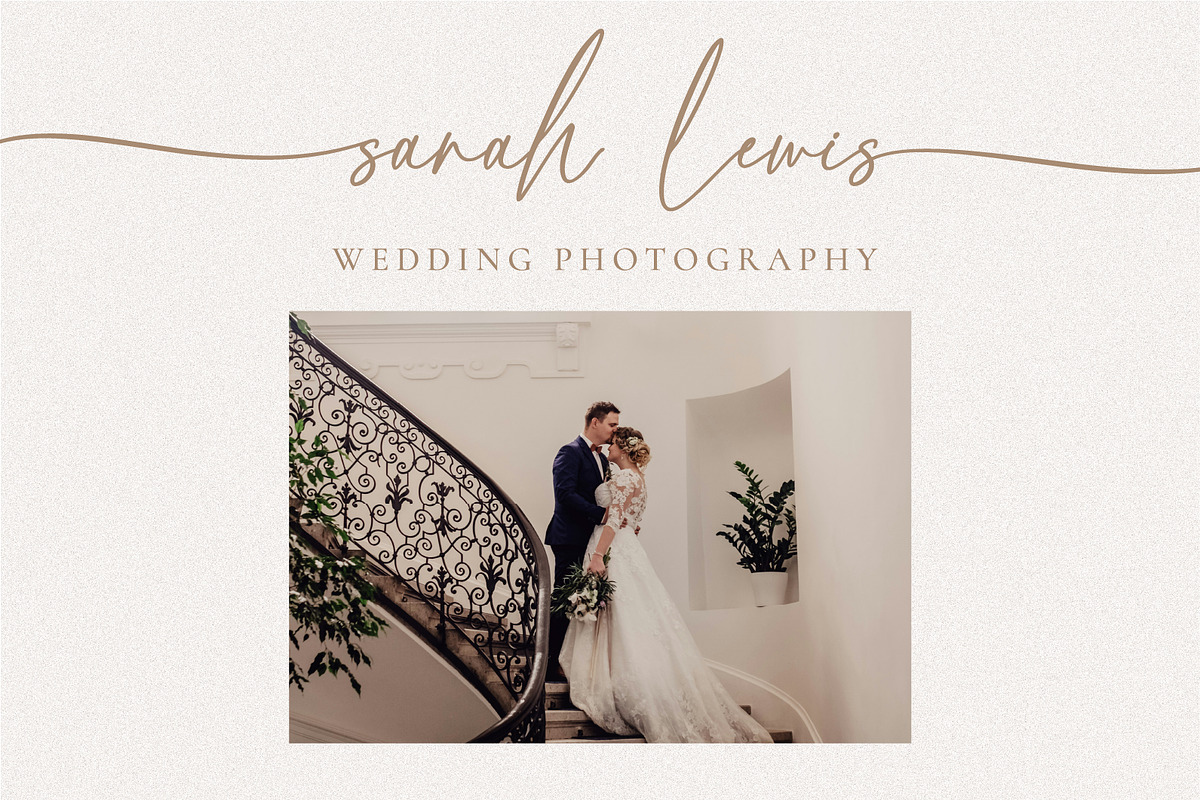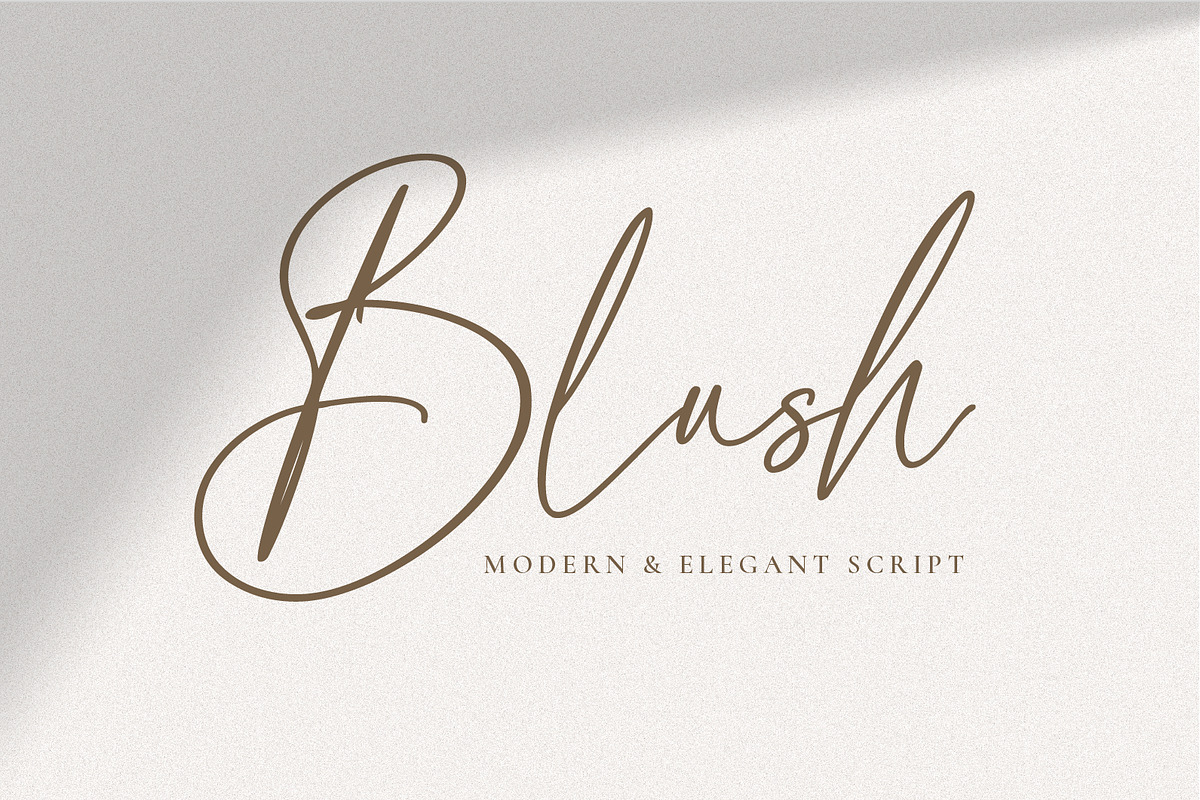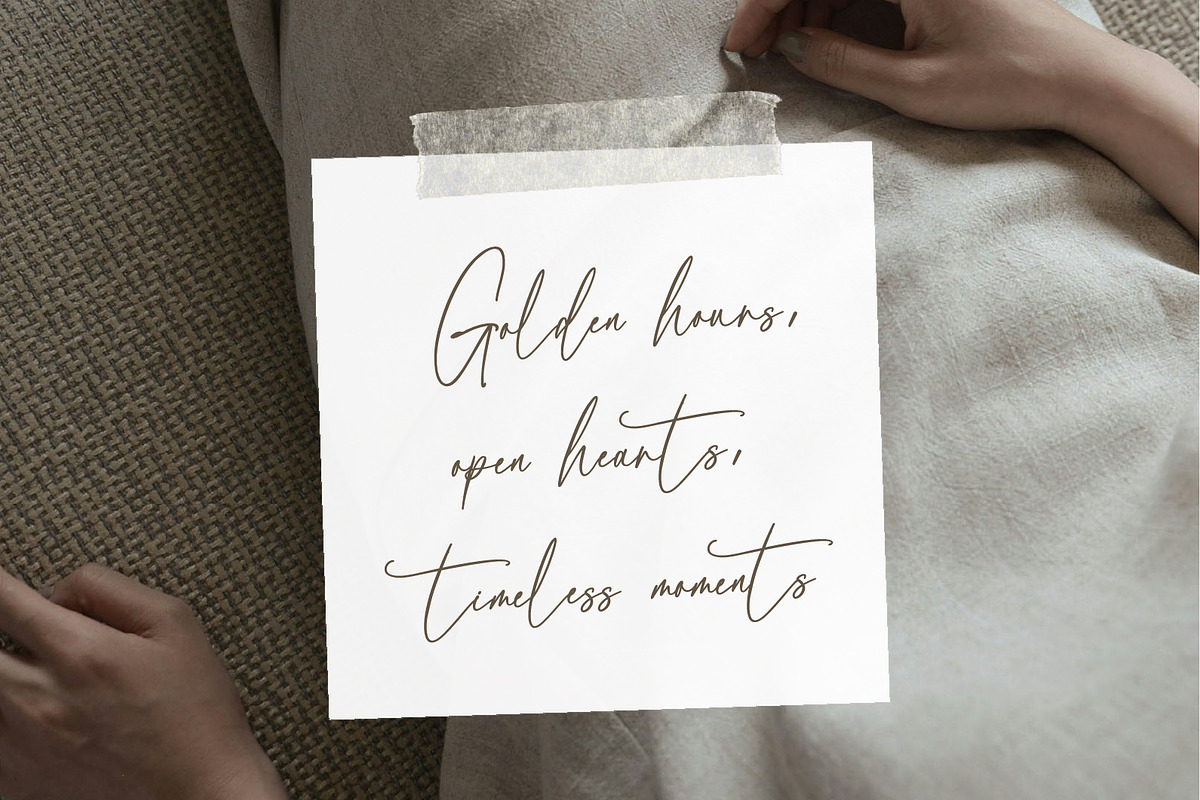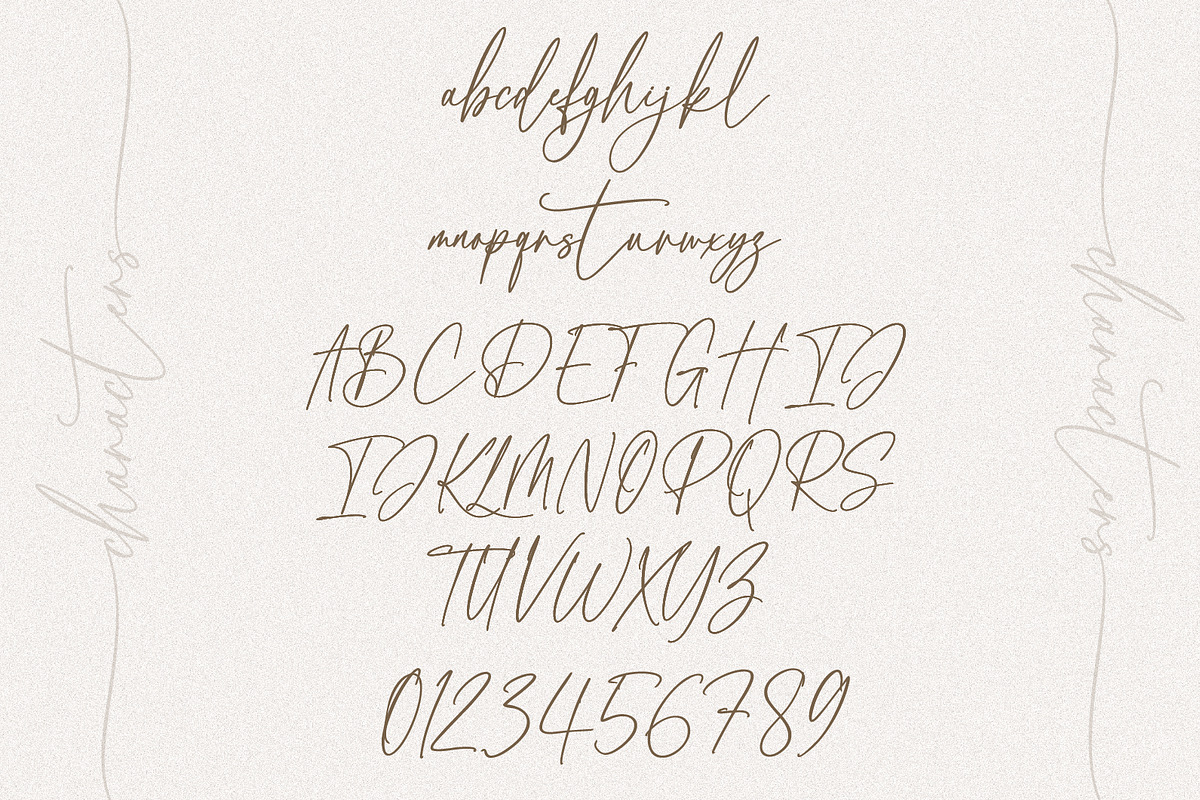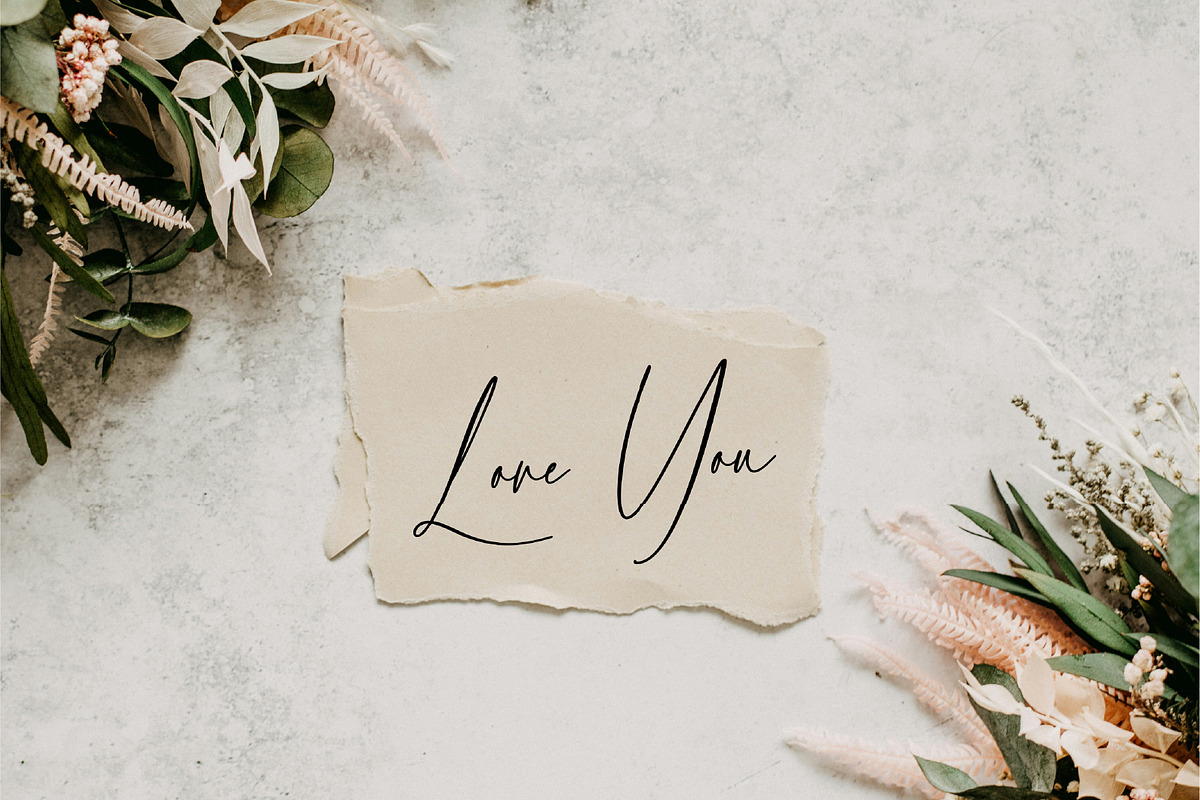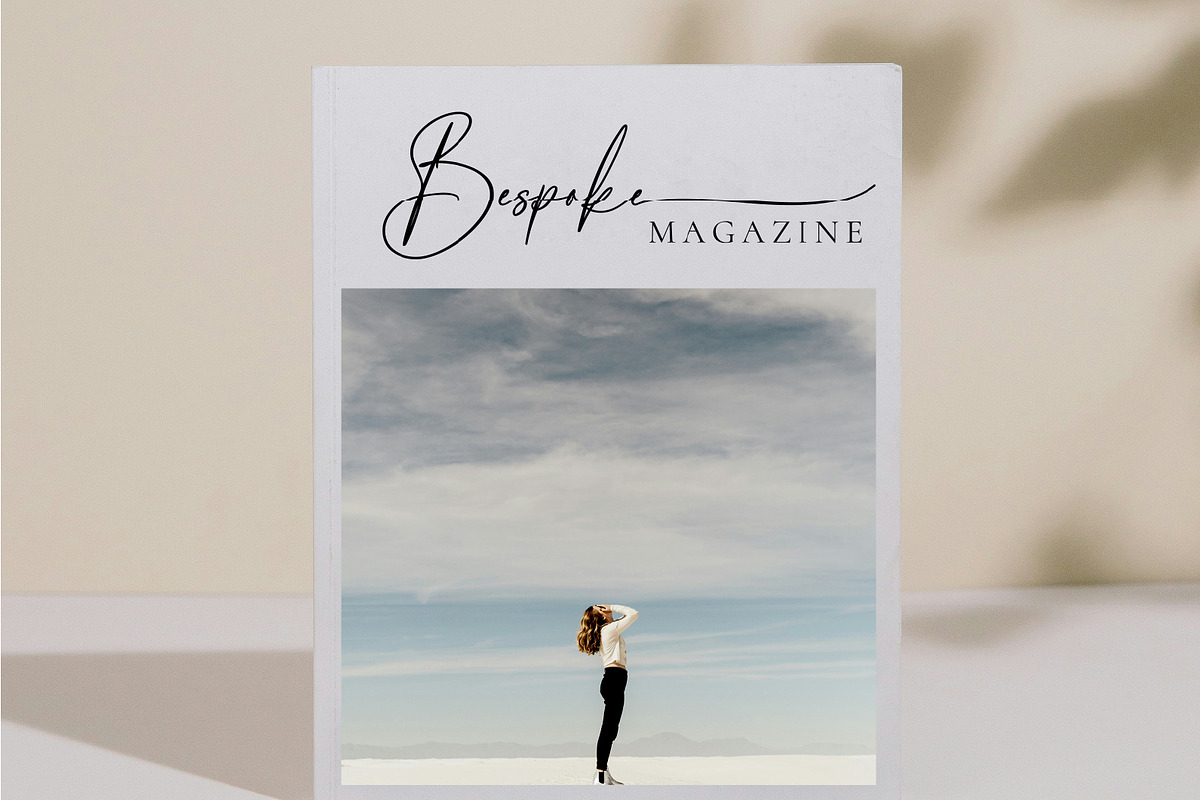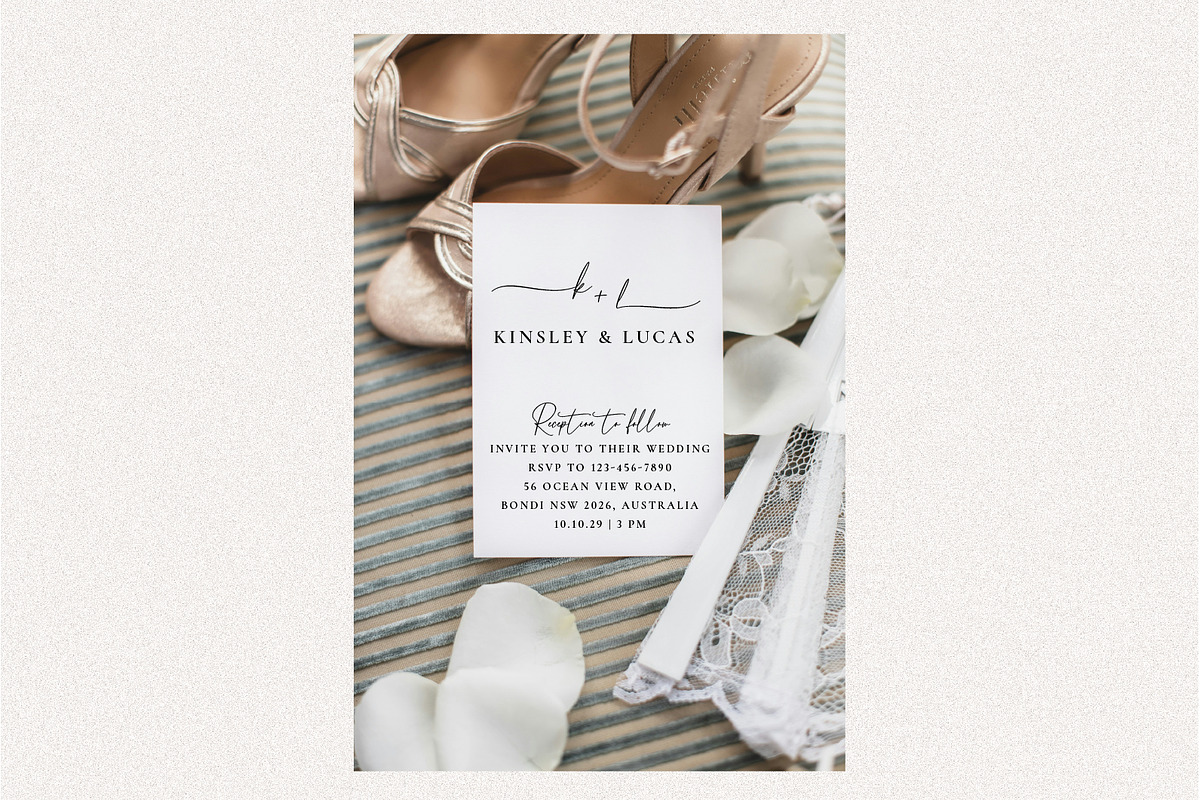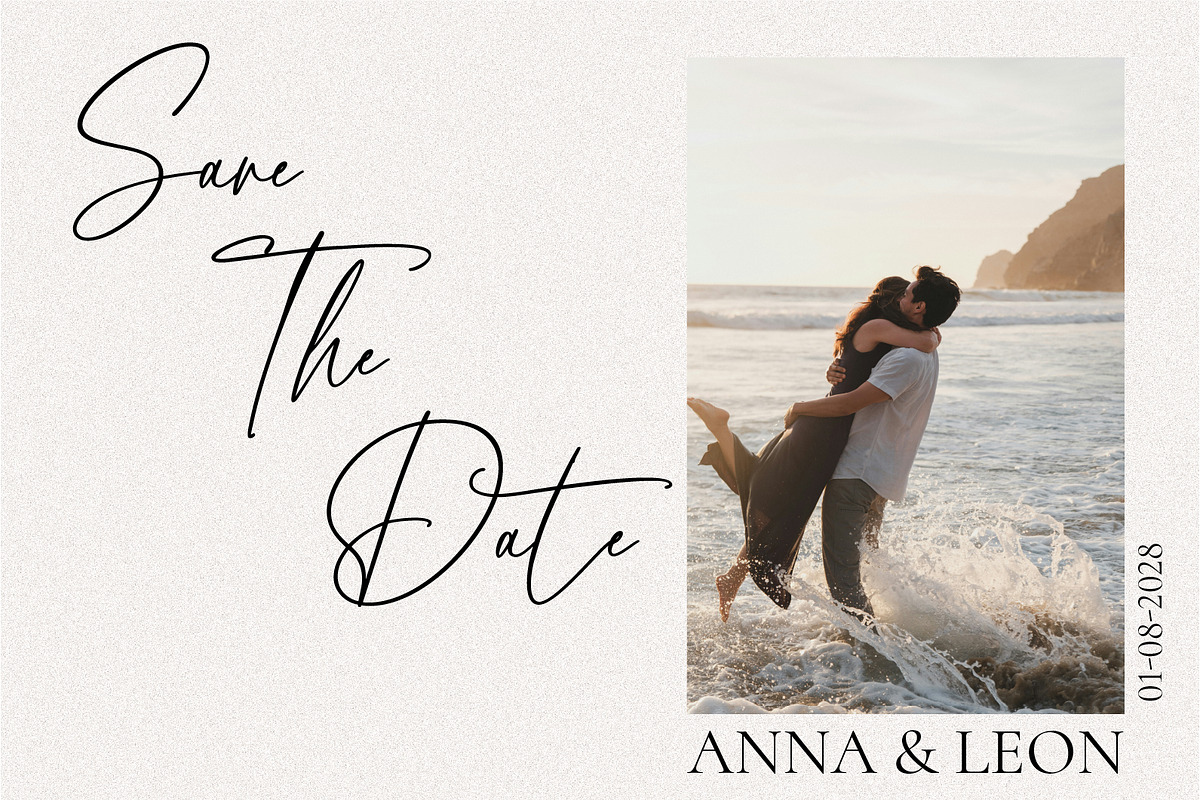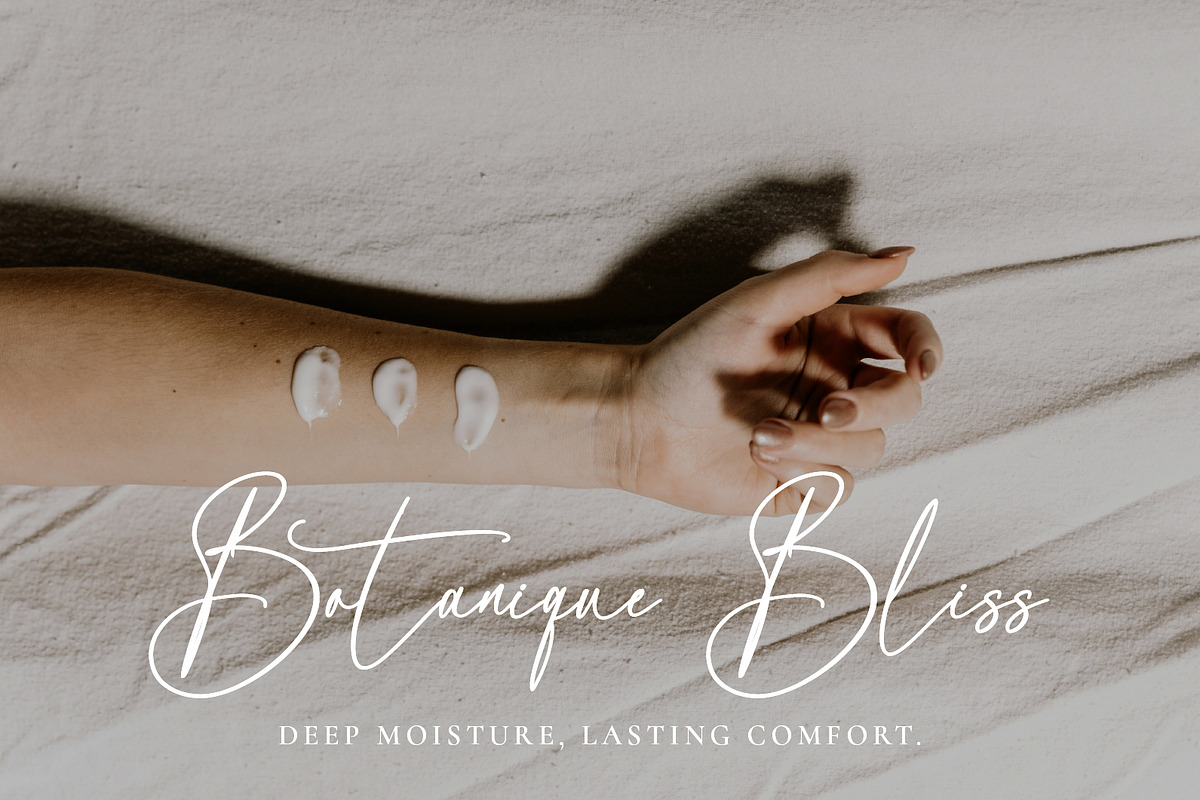
Blush A Script Font
🌸 Blush – Elegant Script Font🌸
Blush is an elegant, romantic script font designed to add a soft, timeless touch to your designs. With graceful strokes and beautiful flow, it’s perfect for weddings, invitations, branding, logos, social media, and small businesses.
This font was carefully crafted to feel luxurious yet natural, making it ideal for both modern and classic projects.
✨ Perfect For
Wedding invitations & stationery
Logos & branding
Bridal designs & events
Business cards & packaging
Quotes, cards & feminine designs
💫 Features
Elegant & beautiful handwritten script
PUA encoded easy access to alternates & swashes)
Stylish stylistic alternates
Clean, smooth curves for professional results
🌍 Language Support Blush supports a wide range of Latin-based languages, including:
Basic Latin
Western European
Central European
South Eastern European
South American
Oceanian
Perfect for international use 🌎